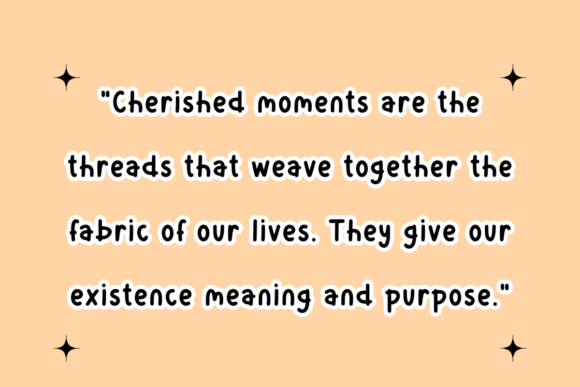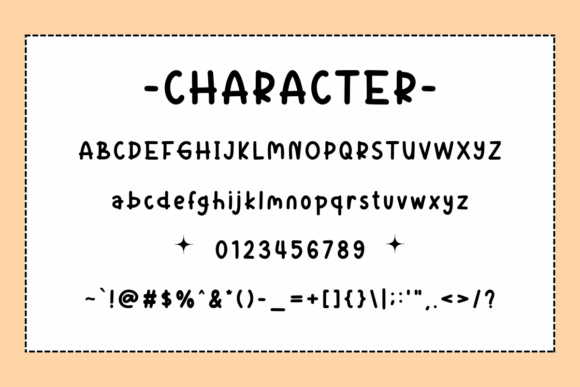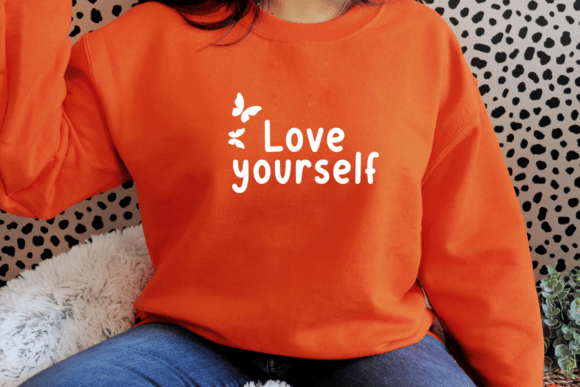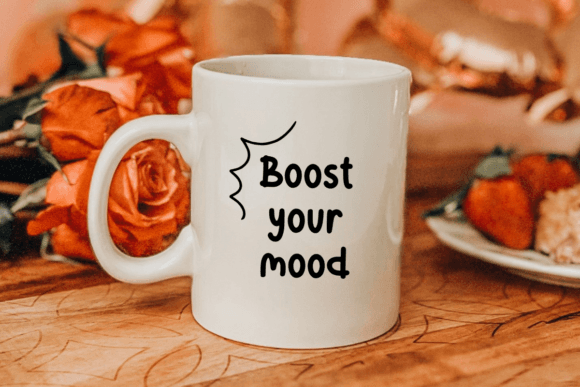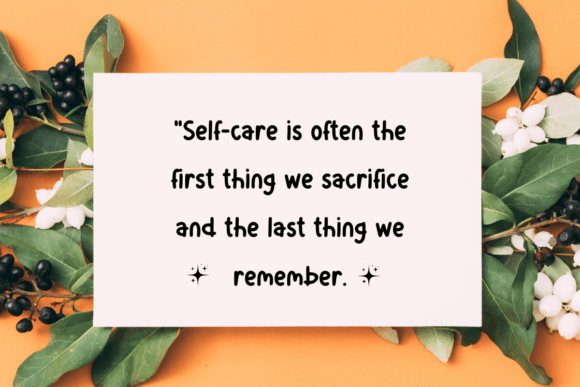
Cherished Moments Font: Adding a Touch of Whimsy to Your Designs
Are you looking for a font that can add a playful and cheerful vibe to your designs? Look no further than the Cherished Moments font. This delightful sans serif font features bold, rounded letters and a fun, outlined style that’s perfect for a variety of creative projects. In this article, we’ll take a closer look at the Cherished Moments font, its characteristics, and how you can use it to elevate your designs.
What is Cherished Moments Font?
Cherished Moments is a playful sans serif font with bold, rounded letters and a fun, outlined style. Its whimsical design is perfect for kids’ projects, party invitations, scrapbook titles, and any design that needs a cheerful and heartwarming vibe. The font’s rounded edges and outlined style give it a friendly and approachable feel, making it ideal for designs that require a personal touch.
Characteristics of Cherished Moments Font
The Cherished Moments font has several characteristics that make it stand out from other fonts. Some of its key features include:
- Bold and rounded letters: The font features bold, rounded letters that are easy to read and give a friendly feel to your designs.
- Outlined style: The outlined style of the font adds a fun and playful touch to your designs, making them more visually appealing.
- Sans serif: The font is a sans serif font, which means it doesn’t have any decorative lines or flourishes at the ends of the letters.
- Whimsical design: The font’s whimsical design makes it perfect for creative projects that require a playful and cheerful vibe.
Uses of Cherished Moments Font
The Cherished Moments font is versatile and can be used for a variety of creative projects, including:
- Kids’ projects: The font’s playful and cheerful design makes it perfect for kids’ projects, such as posters, flyers, and worksheets.
- Party invitations: The font’s fun and whimsical design makes it ideal for party invitations, such as birthday parties, baby showers, and graduations.
- Scrapbook titles: The font’s bold and rounded letters make it perfect for scrapbook titles, adding a personal touch to your scrapbook pages.
- Social media graphics: The font’s cheerful design makes it perfect for social media graphics, such as Facebook posts, Instagram stories, and Twitter headers.
Tips for Using Cherished Moments Font
Here are some tips for using the Cherished Moments font in your designs:
- Use it for headings: The font’s bold and rounded letters make it perfect for headings, adding a playful touch to your designs.
- Pair it with other fonts: The font can be paired with other fonts to create a unique and visually appealing design.
- Experiment with colors: The font’s outlined style makes it perfect for experimenting with different colors and adding a pop of color to your designs.
The Cherished Moments font is a playful and cheerful font that’s perfect for adding a touch of whimsy to your designs. Its bold, rounded letters and fun, outlined style make it ideal for kids’ projects, party invitations, scrapbook titles, and any design that needs a cheerful and heartwarming vibe. With its versatility and ease of use, the Cherished Moments font is a must-have for designers and crafters looking to add a personal touch to their creations.